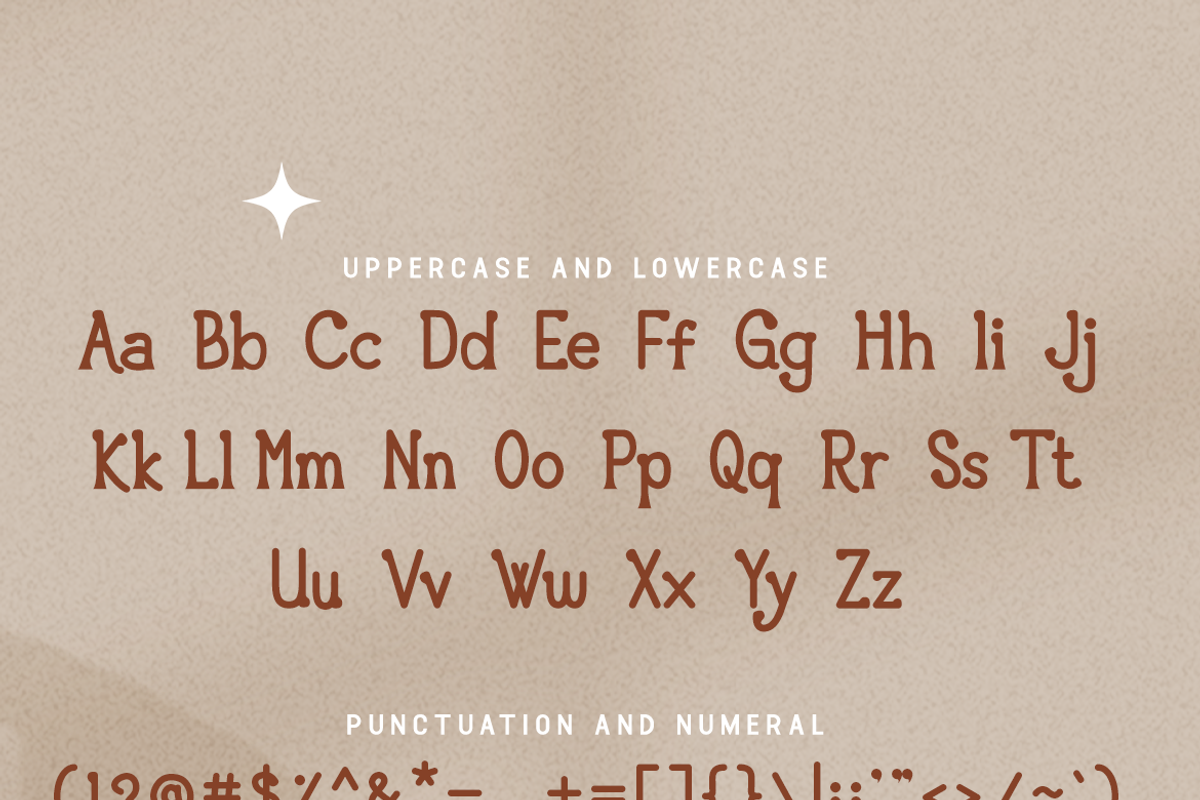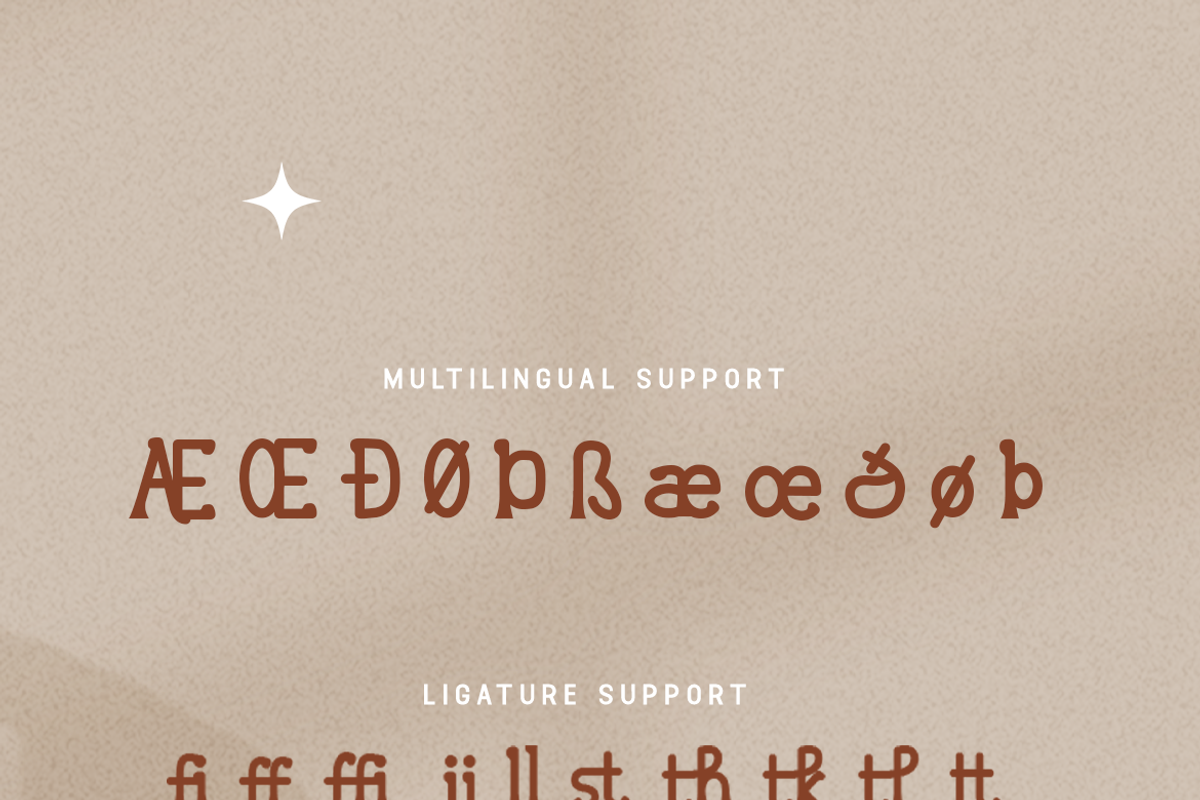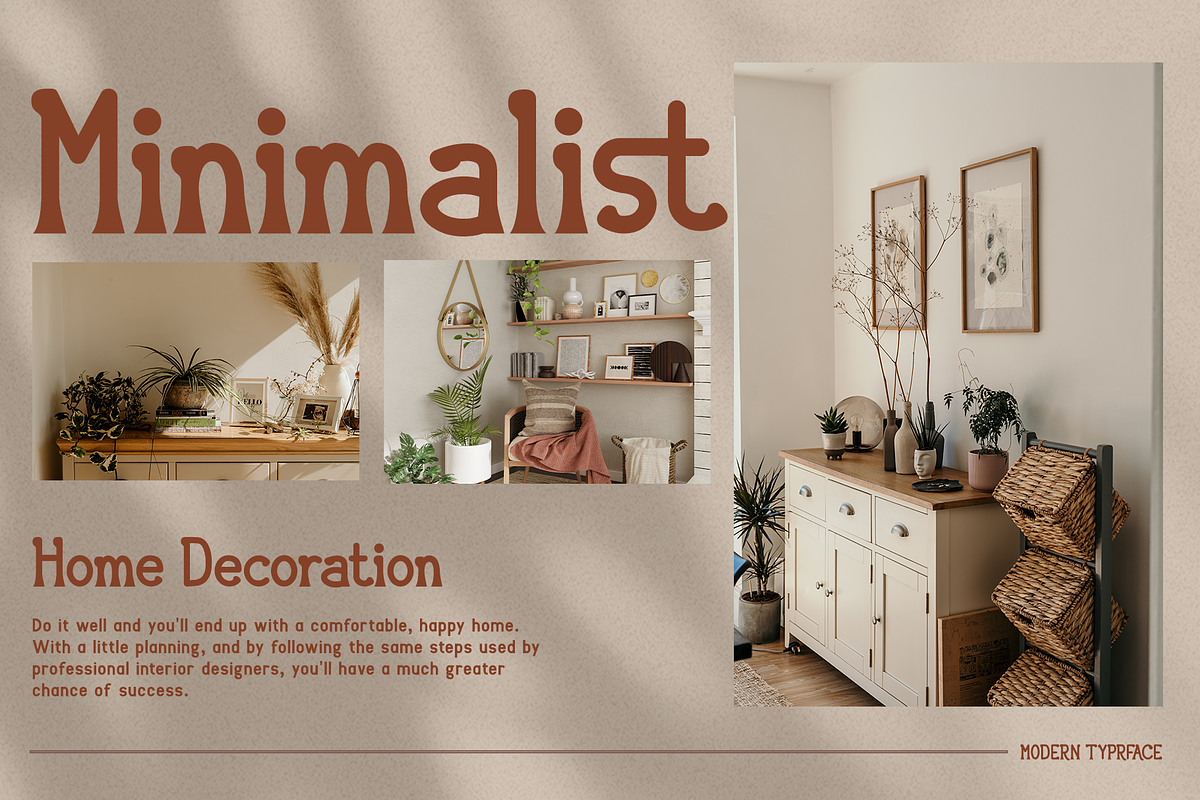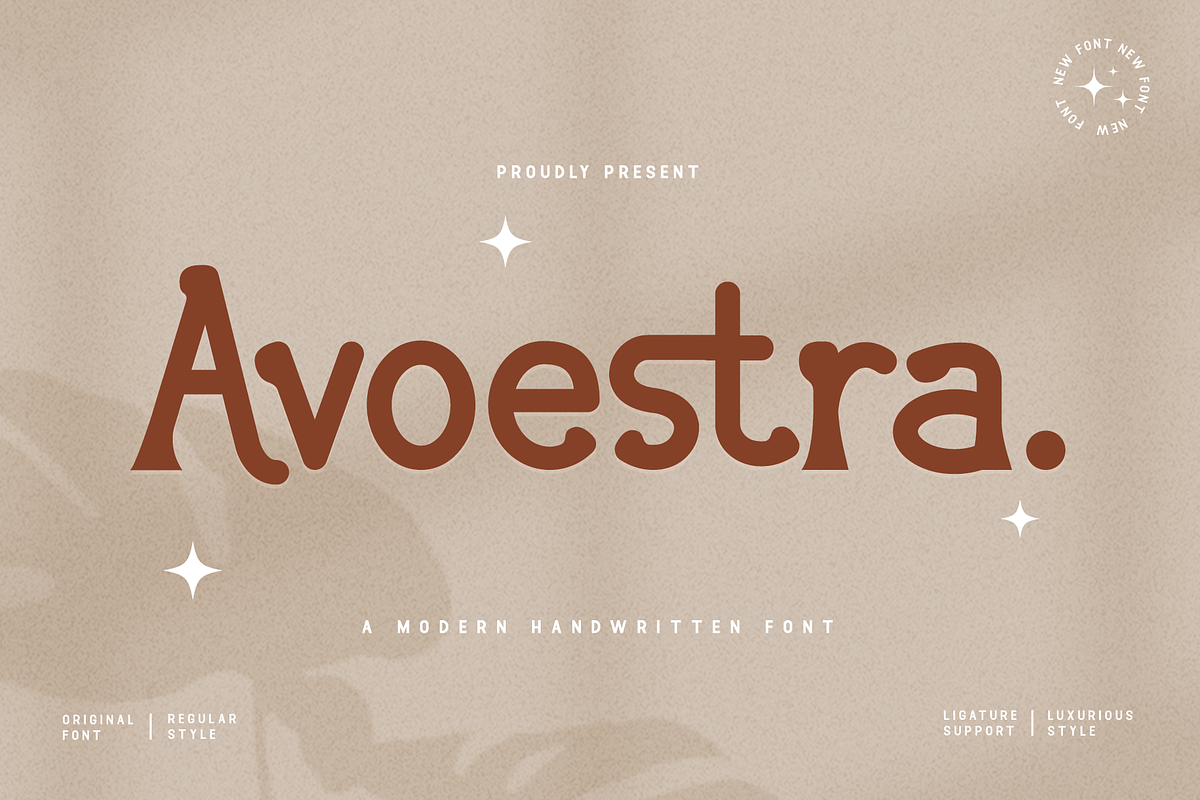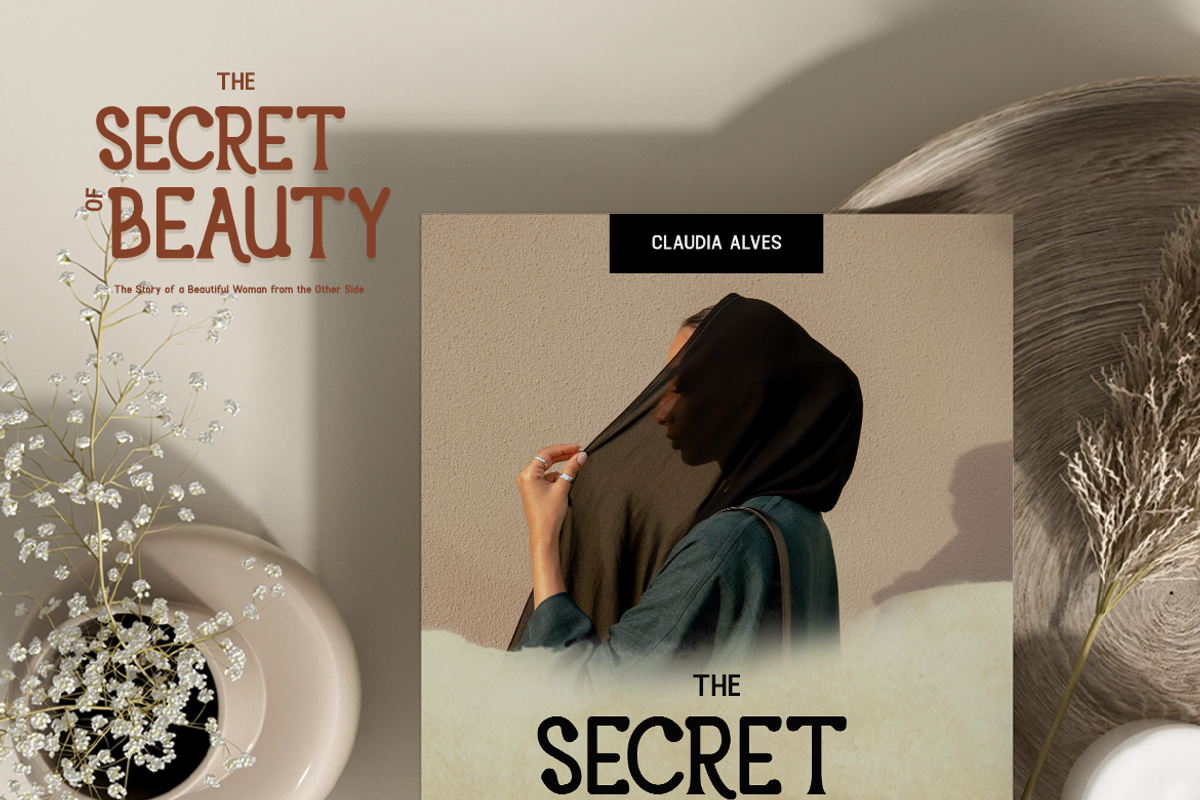
Avoestra - Modern Handwritten Font
Introducing "Avoestra," a modern handwritten font that seamlessly blends elegance and style. Perfectly designed for both personal and professional projects, "Avoestra" offers a unique touch to any design.
"Avoestra" features smooth, flowing lines and an organic feel that mimics natural handwriting. This font includes a full set of uppercase and lowercase letters, numerals, punctuation, and extensive multilingual support, making it versatile for various design applications.
Ideal for invitations, greeting cards, branding, logos, quotes, social media posts, and more, "Avoestra" adds a personal and sophisticated touch to your creations. Its modern handwritten style is perfect for projects that require a warm, inviting, and contemporary look.
"Avoestra" is the perfect choice for designers seeking a font that combines modern elegance with a handcrafted feel.